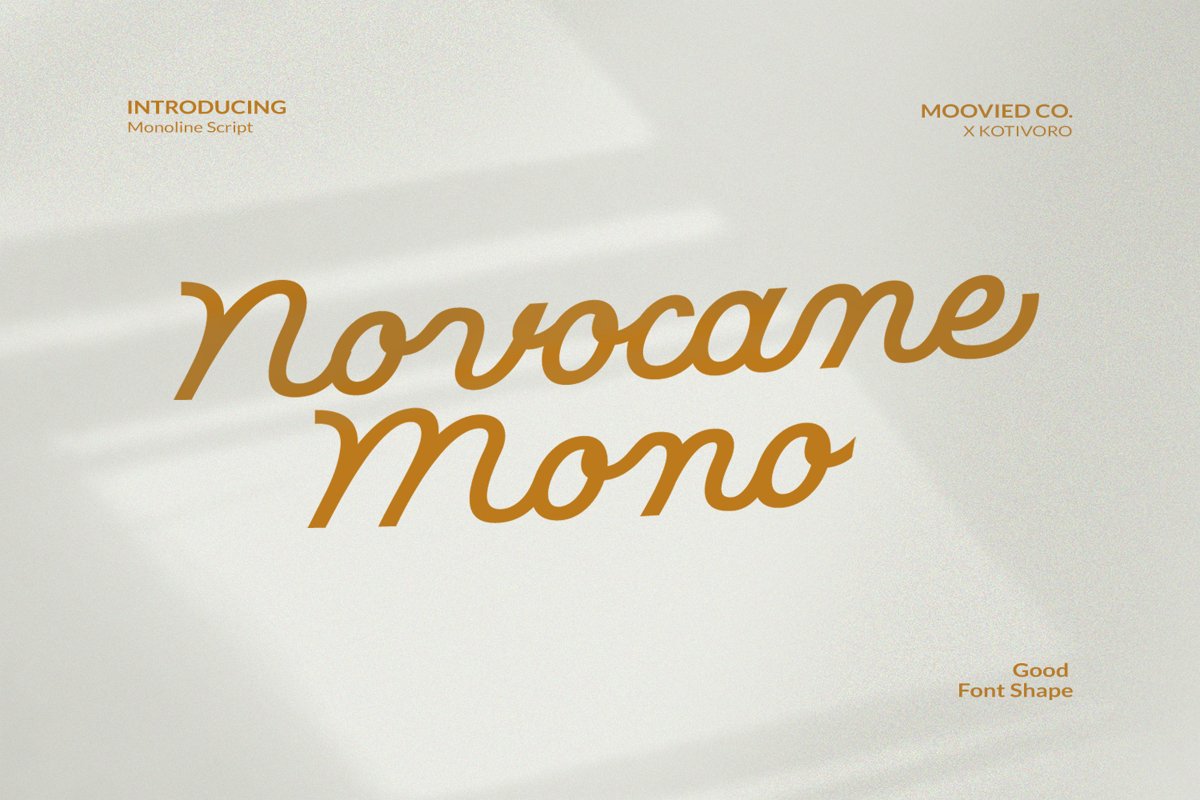
Novocane Mono
Novocane Monoline Script is a beautiful chic script that is suitable for branding, wedding invitations, and other romantic projects. anything.